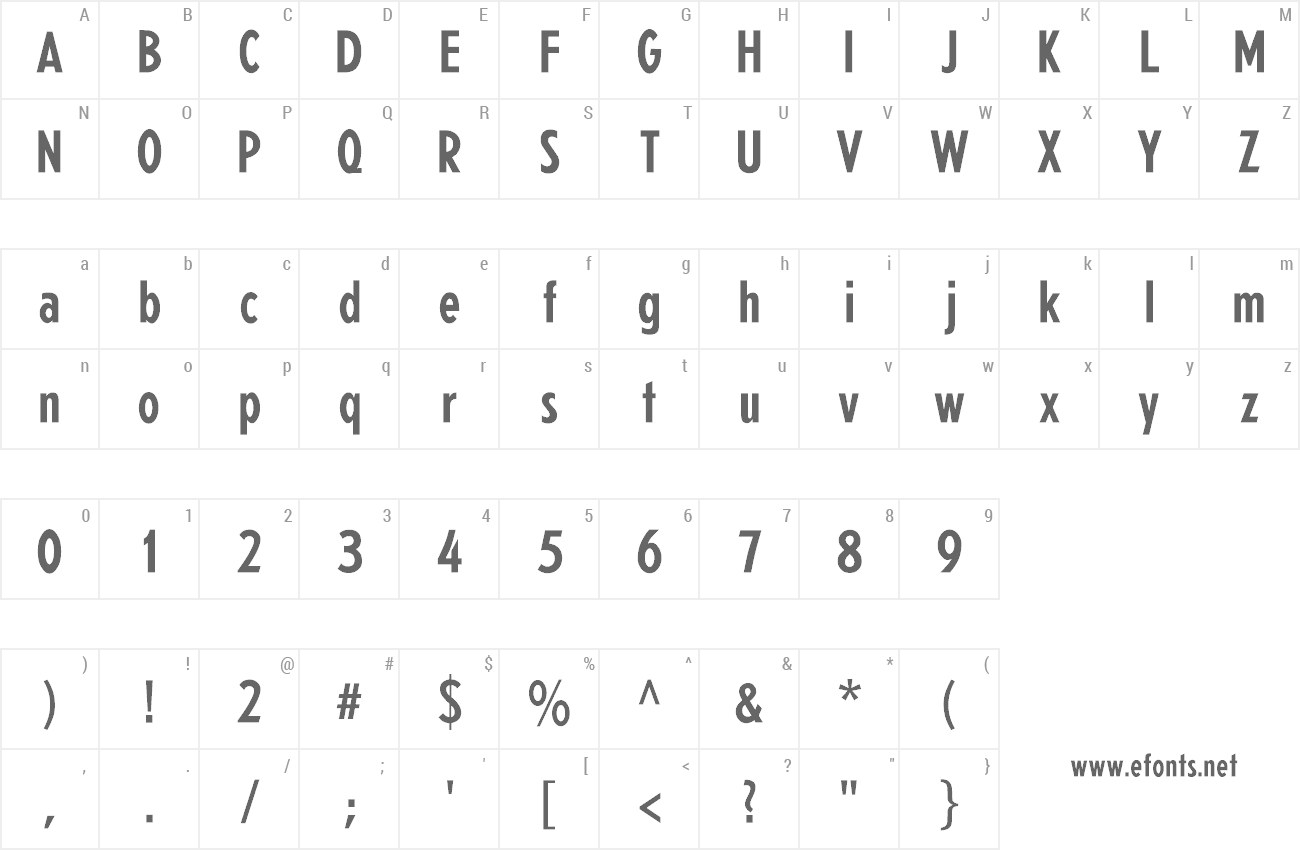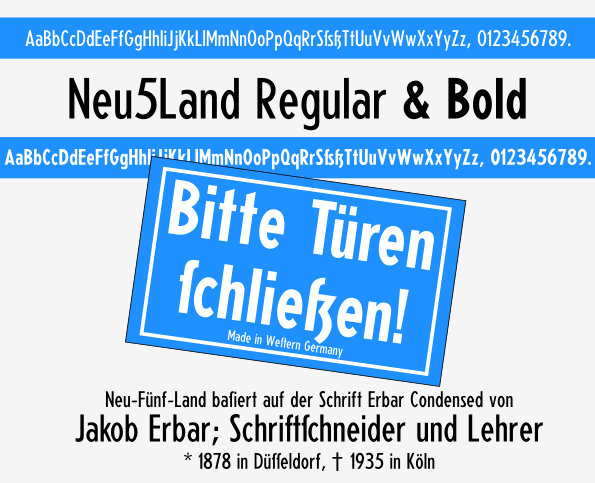
FONTLOG.txt for Neu5Land OFL Open Font License http://scripts.sil.org/OFL Fontfamily Neu5Land by Uwe Borchert This Typeface ist based on the Schmale Erbar Grotesk (Jakob Erbar, 1922ff) and was very popular on signs in the former German Democratic Republic/Deutsche Demokratische Repubik (GDR/DDR) Further readings on Wikipedia: https://en.wikipedia.org/wiki/Erbar_(typeface) |